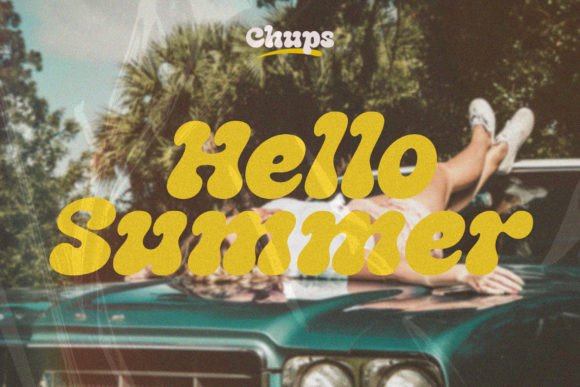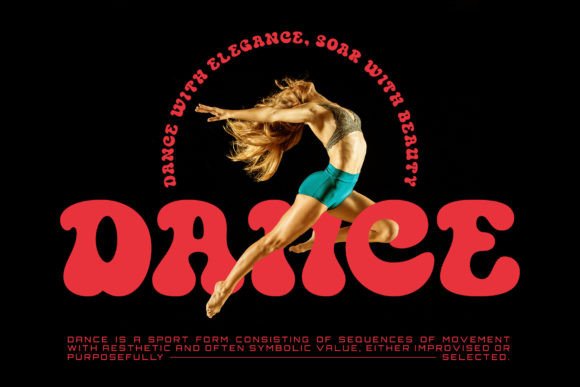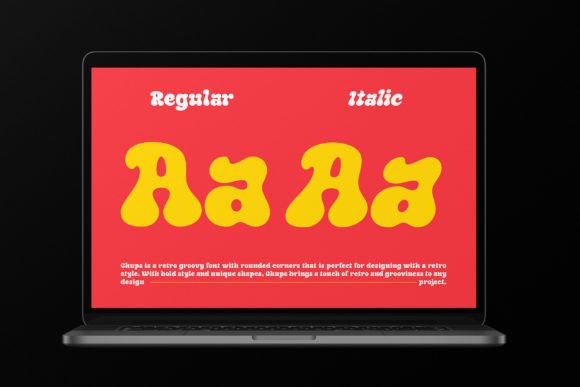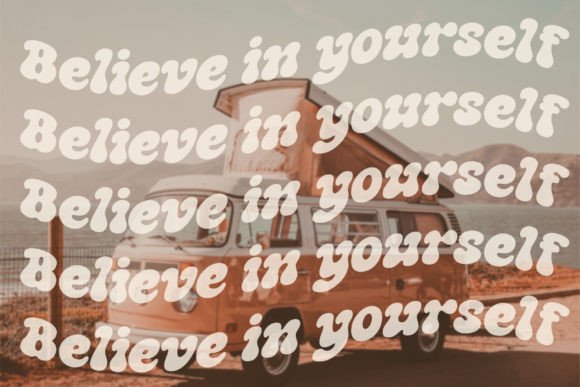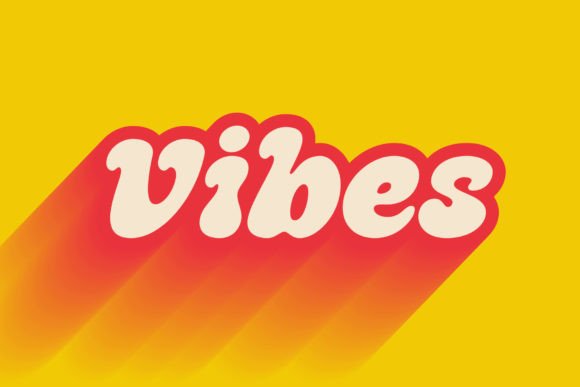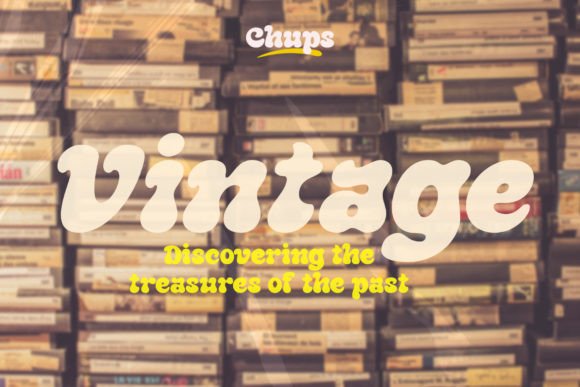
Introducing Chups Font: The Groovy Display Font of the Century
Are you a designer or crafter looking to add a touch of the psychedelic era to your work? Look no further than Chups Font, a bold and curvy display font that’s sure to bring a sense of fun and vibrancy to any project. Inspired by the iconic styles of the 1970s, Chups is the perfect addition to your font collection if you’re looking to create eye-catching album covers, posters, party invitations, or any other design that needs a retro kick.
The Psychedelic Era: A Time of Creative Explosion
The 1970s was a decade of creative explosion, marked by a cultural shift towards free expression and nonconformity. The psychedelic era, in particular, was characterized by a fascination with vibrant colors, bold patterns, and experimental art. This era saw the rise of iconic designers, artists, and musicians who pushed the boundaries of creativity, leaving behind a legacy of inspiring works that continue to influence design today.
Chups Font: A Modern Take on a Retro Classic
Chups Font is a modern take on the classic styles of the psychedelic era. Its bold and curvy letterforms are reminiscent of the iconic typography of the 1970s, with a playful and energetic twist. The font’s unique design makes it perfect for adding a retro touch to your designs, while its legibility ensures that your message is conveyed clearly and effectively.
Key Features of Chups Font
- Bold and curvy letterforms: Chups Font features bold and curvy letterforms that are sure to grab attention.
- Playful and energetic style: The font’s playful and energetic style makes it perfect for designs that need a fun and vibrant touch.
- Retro inspiration: Chups Font takes inspiration from the psychedelic era, making it perfect for designs that require a retro touch.
- Legible and clear: Despite its bold and curvy design, Chups Font is legible and clear, making it perfect for use in a variety of designs.
Uses for Chups Font
Chups Font is a versatile font that can be used in a variety of designs, including:
- Album covers: Add a retro touch to your album covers with Chups Font.
- Posters: Create eye-catching posters with Chups Font’s bold and curvy letterforms.
- Party invitations: Make your party invitations stand out with Chups Font’s playful and energetic style.
- Logos and branding: Use Chups Font to create unique and memorable logos and branding for your business.
Tips for Using Chups Font
Here are some tips for using Chups Font in your designs:
- Use it sparingly: Chups Font is a bold font, so use it sparingly to avoid overwhelming your design.
- Pair it with neutral fonts: Pair Chups Font with neutral fonts to create contrast and make your design stand out.
- Experiment with colors: Chups Font looks great in bright and bold colors, so experiment with different color schemes to find the perfect look for your design.
Chups Font is a groovy display font that’s perfect for designers and crafters looking to add a touch of the psychedelic era to their work. With its bold and curvy letterforms, playful and energetic style, and retro inspiration, Chups Font is sure to bring a sense of fun and vibrancy to any design. Whether you’re creating album covers, posters, party invitations, or logos and branding, Chups Font is the perfect addition to your font collection.